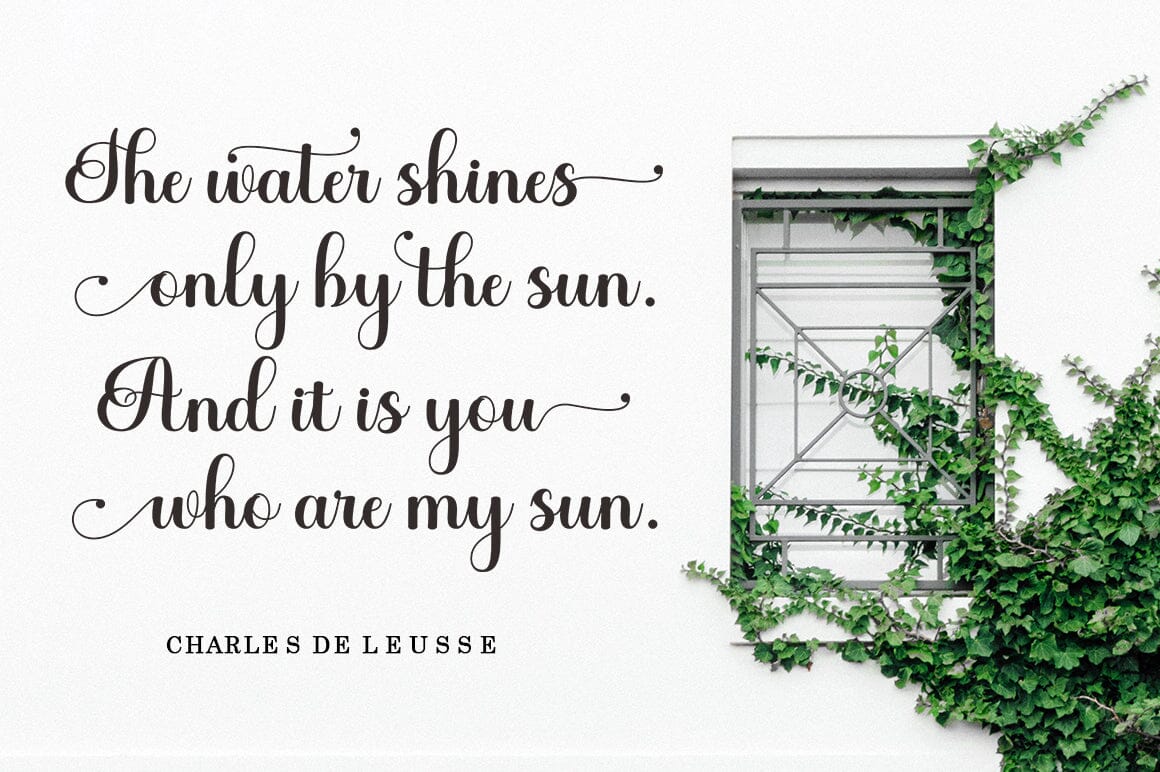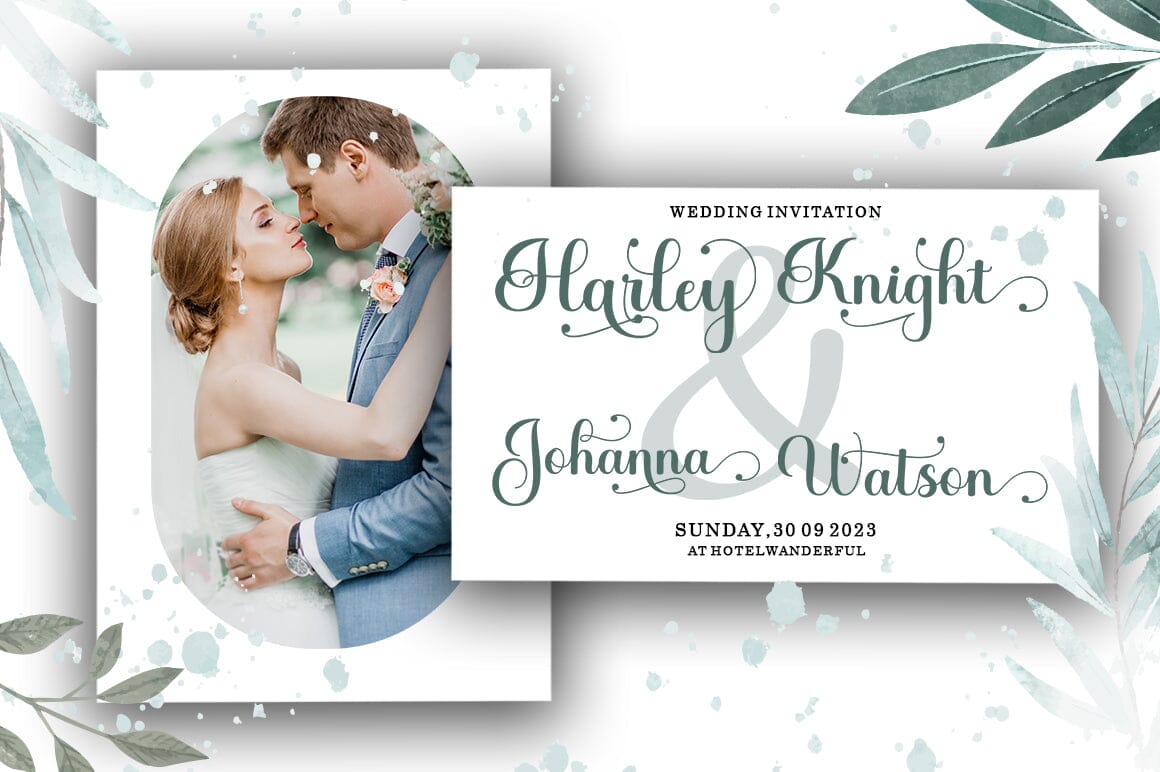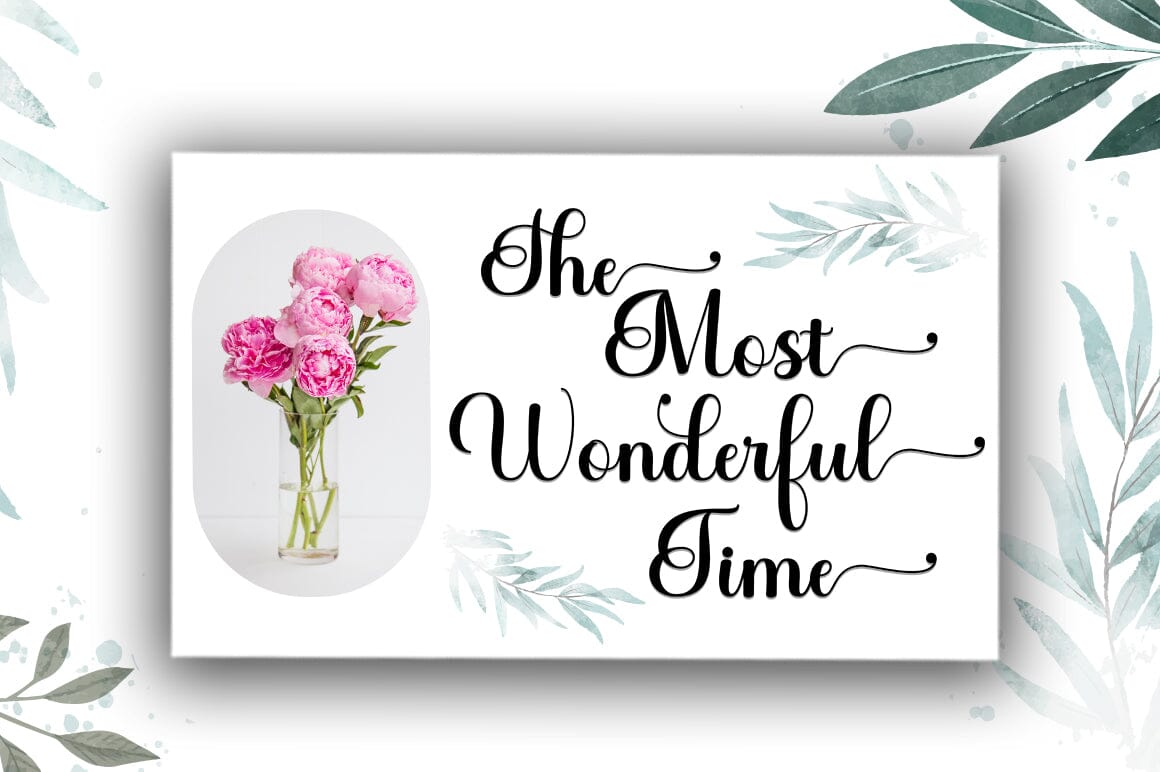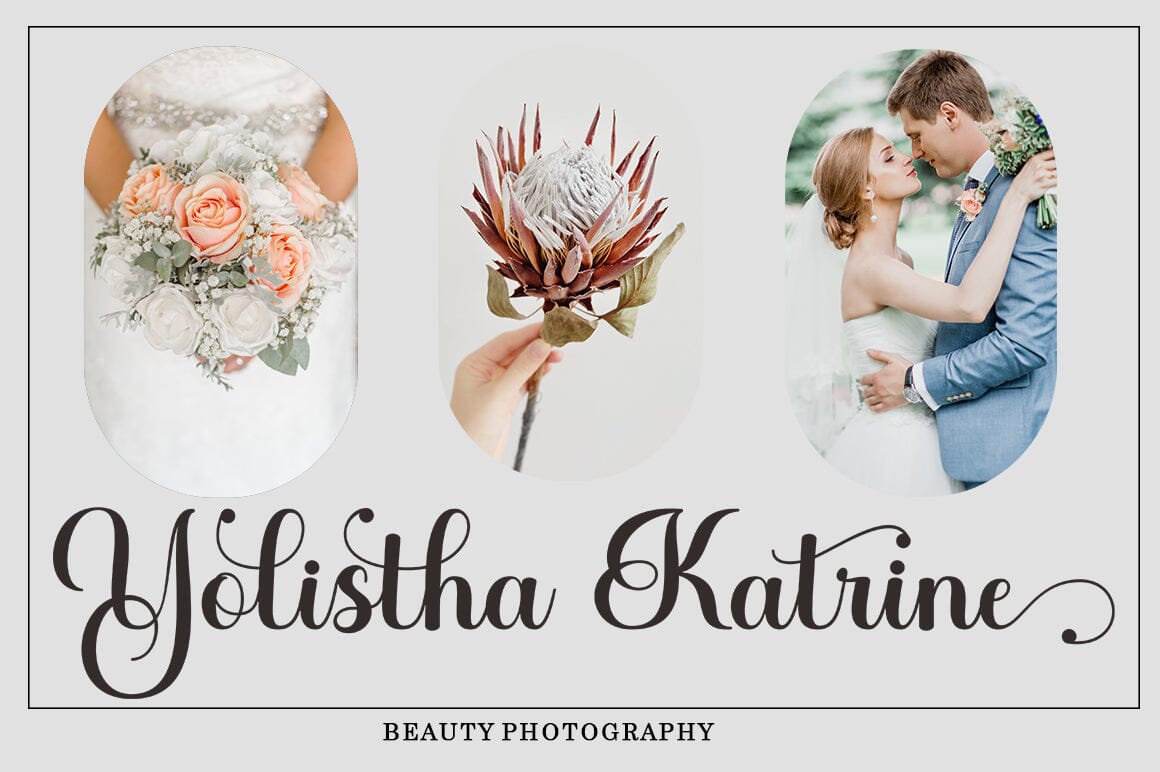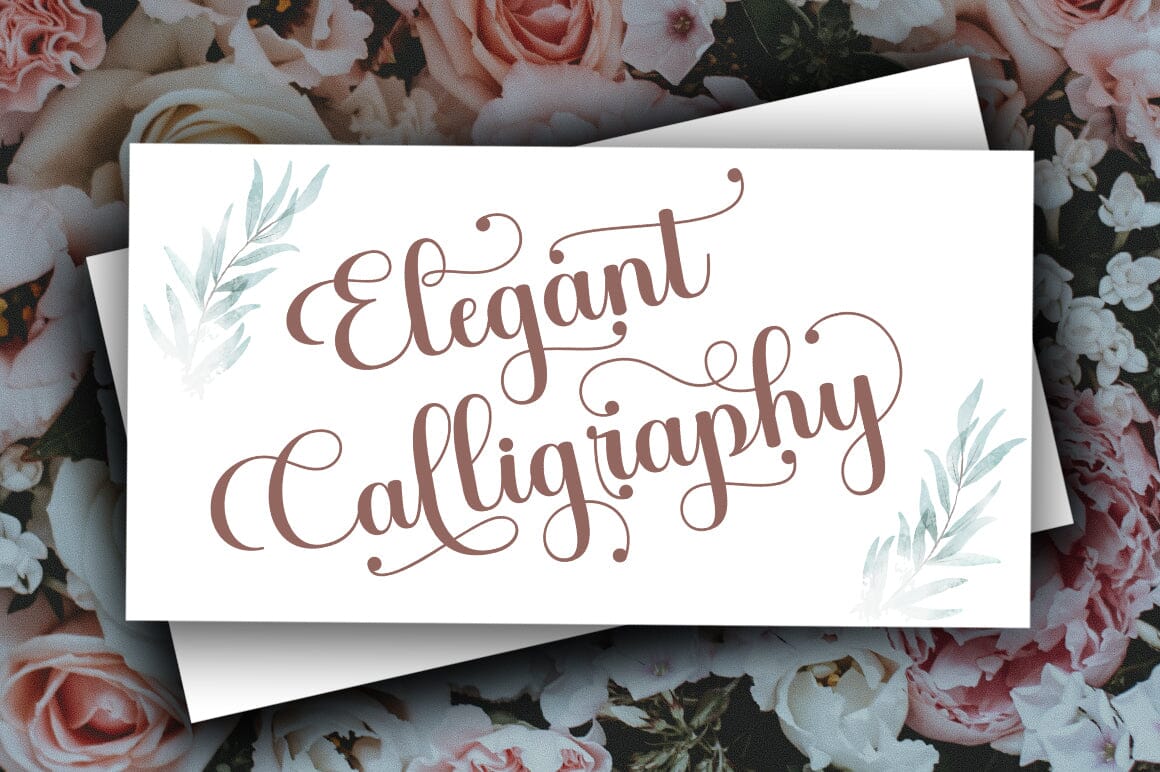
About Greating
Greating Script Greating is a very easy to read Script typeface, a beautiful, classy and elegant typeface. Can be used for various purposes such as logos, wedding invitations, t-shirts, letterhead, signage, news, posters, badges etc. Greating Script features 399+ glyphs and 186 alternate characters, including start and end, alternate, swash, ligature, and multiple language support. Files include: Greating Script.otf Greating Script.ttf See all the glyphs here: http://s4.postimg.org/klr1p7m4d/All_Glyphs.jpg